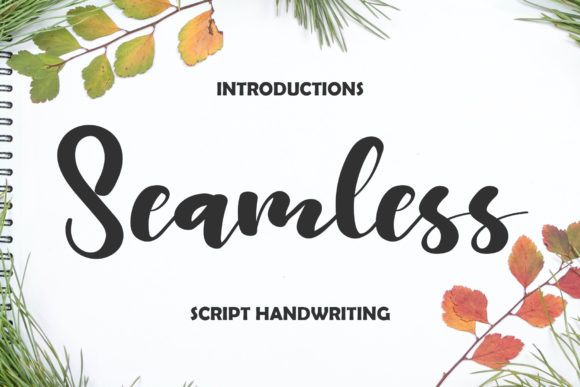
About Seamless Font
“Seamless” is an elegant script font that exudes a contemporary atmosphere and impeccable form. Striking a balance between not too thin and not too thick, this font is designed with a varied and well-balanced approach, aimed at enhancing the beauty of your projects with a touch of sophistication.
The elegant and contemporary nature of “Seamless” makes it a versatile choice for a range of design applications. Imagine this font gracing wedding invitations, where its script style adds a timeless and sophisticated touch to the celebration. The balanced form ensures that “Seamless” contributes to an overall refined and elegant aesthetic.
In branding projects, “Seamless” becomes a key element in creating a visual identity that exudes sophistication. The font’s impeccable form allows it to be a versatile and adaptable choice for diverse industries, from luxury to lifestyle.
For any design project that demands a blend of elegance and contemporary style, “Seamless” stands out. Its script form adds a personalized and artistic touch, making it suitable for creating visually appealing and refined designs.
As you integrate “Seamless” into your creative projects, appreciate its elegance and contemporary flair. Whether you’re working on print materials or digital media, this font serves as a refined and sophisticated choice to enhance the overall beauty of your designs, ensuring a seamless blend of classic and modern elements.